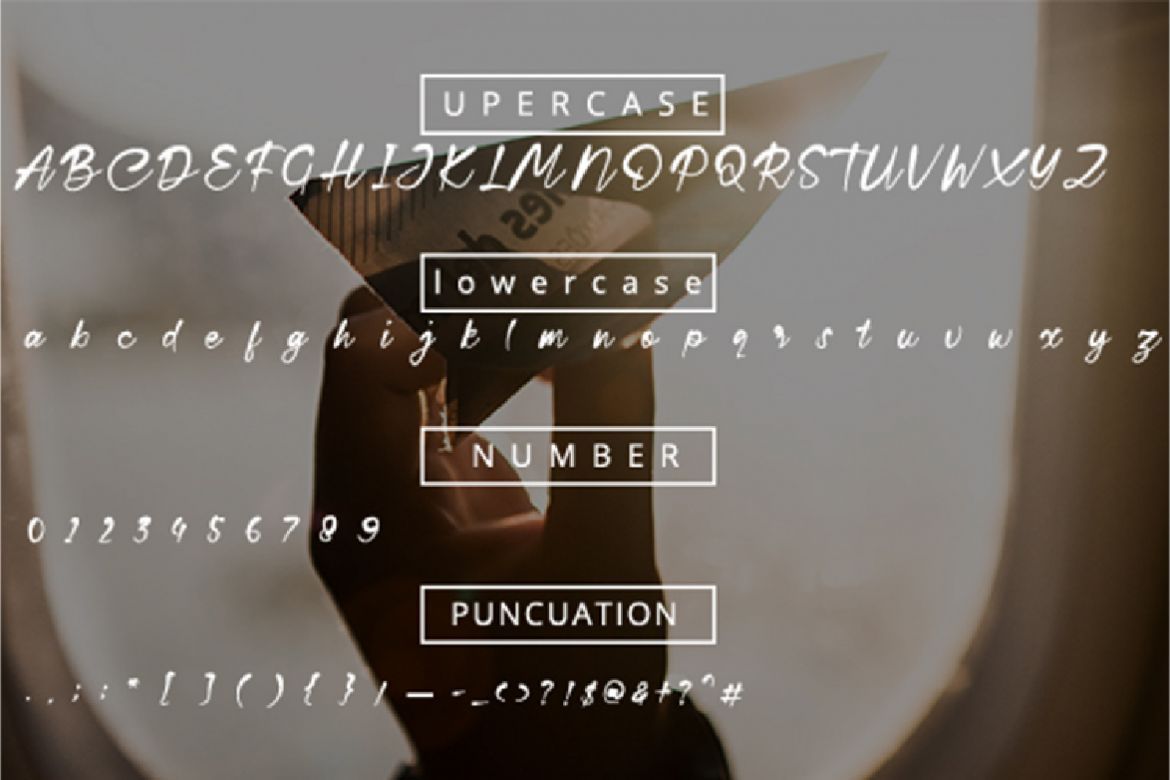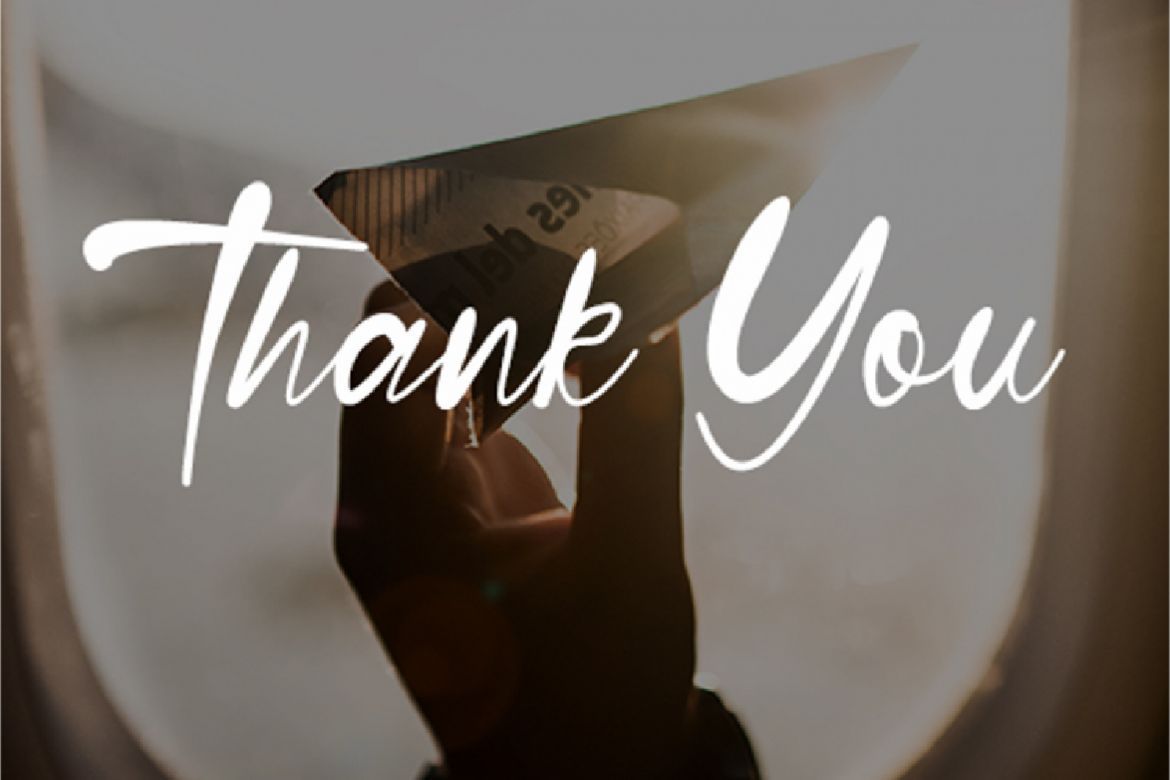
Brokolly - Script Font
Brokolly is script and handwritten font. This font is perfect for your any project such as signature, logo name, wedding invitation design, book cover, typography, etc.